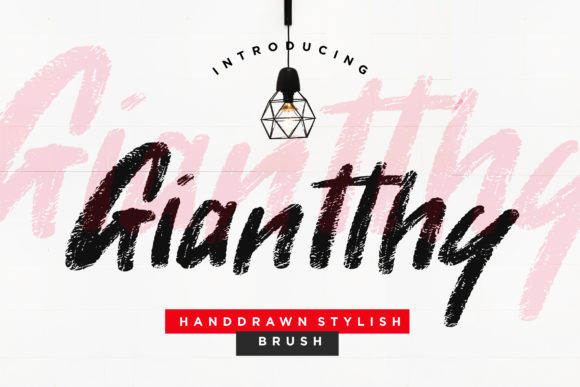
Behold Giantthy, the captivating display font family, meticulously crafted to make a lasting impression. Designed by the talented CreatypeStudio, Giantthy exudes a remarkable charm that effortlessly adds a touch of individuality to your projects. Its handwritten brush strokes evoke a sense of authenticity and flair, making it the perfect choice for creative endeavors that demand an expressive and heartfelt touch.
Embark on a creative expedition and let Giantthy guide you through the realm of captivating designs. Its enchanting aura will transform your projects into visual masterpieces. Giantthy's versatile personality makes it suitable for a myriad of applications, from heartfelt wedding invitations and enchanting book covers to vibrant logo designs and stunning social media graphics.
Unleash your imagination and let Giantthy's undeniable charm work its magic. Its ability to effortlessly blend sophistication and playfulness will elevate your designs to new heights. Witness how this remarkable font family breathes life into your creative visions, leaving an indelible mark on the hearts and minds of your audience.
Giantthy is more than just a font; it's an experience that will ignite your creativity and leave you spellbound. Its every stroke is infused with a unique narrative, inviting you to explore a world of endless possibilities. Whether you're a seasoned designer or just starting your artistic journey, Giantthy will be your steadfast companion, guiding you towards design excellence.
So, embrace the allure of Giantthy and embark on a transformative creative odyssey. Allow its enchanting presence to elevate your designs, captivating audiences with its magnetic charm. Giantthy is not just a font; it's a gateway to a world of visual storytelling, waiting for you to unlock its boundless potential.